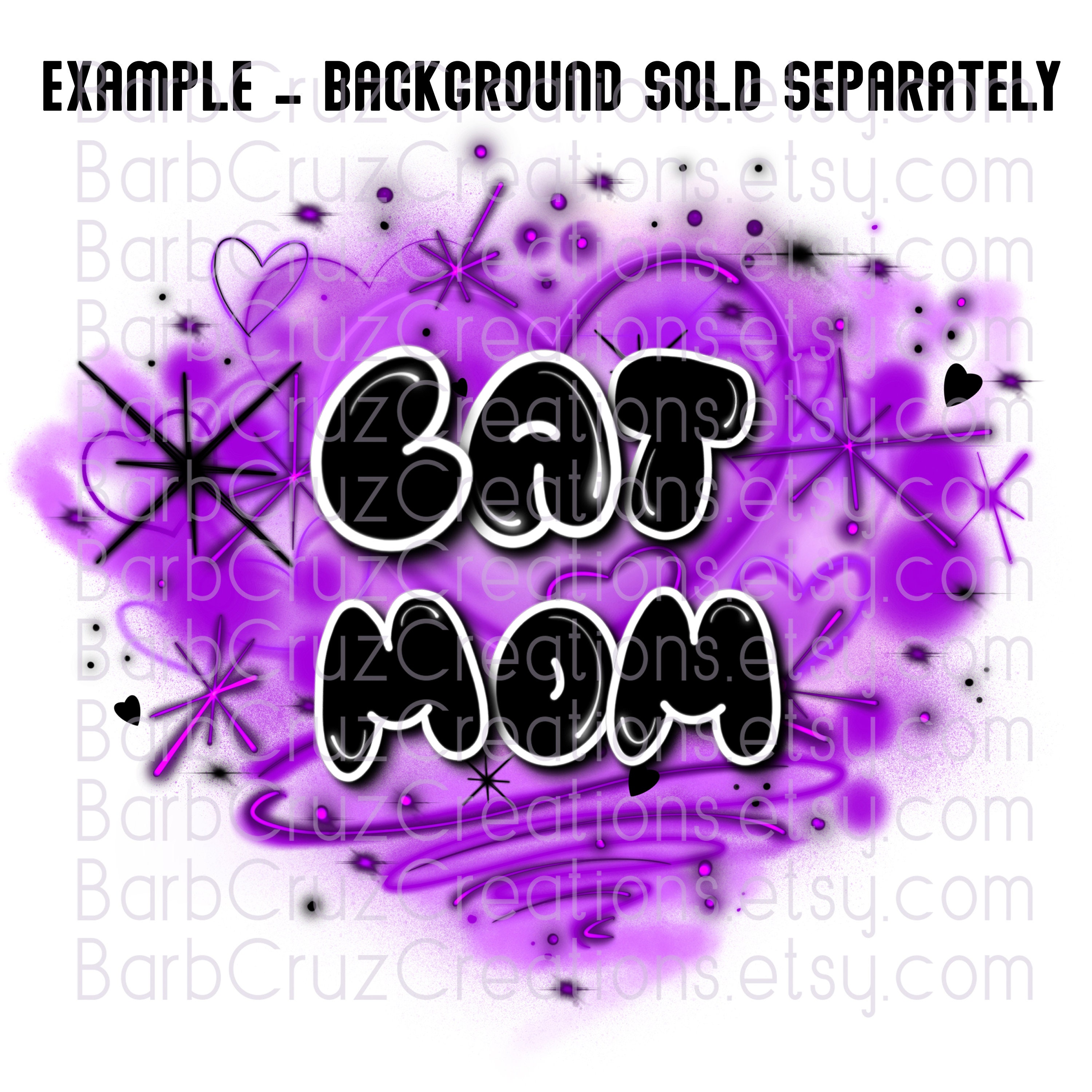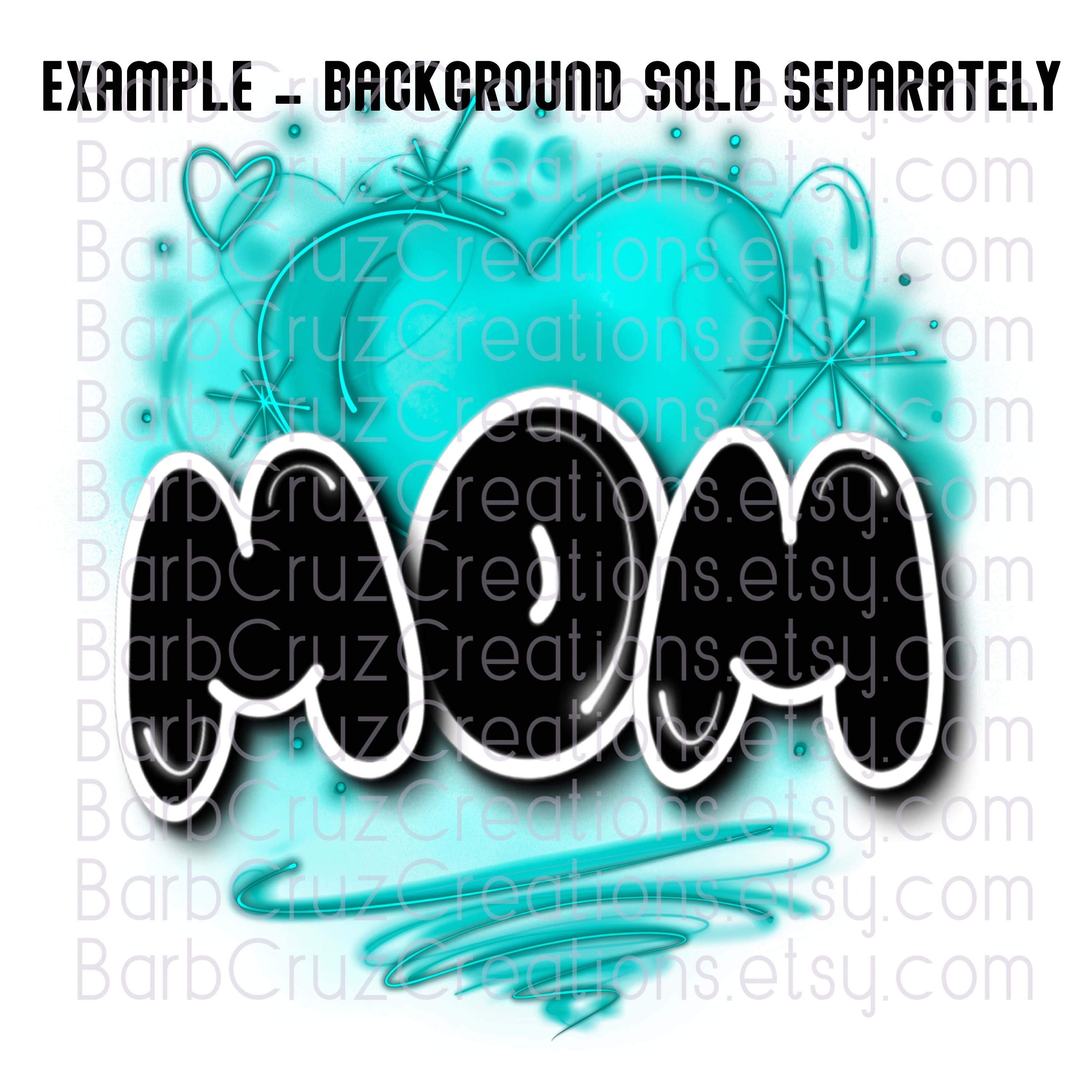
Bubble Font Images, Fat, Graffiti Letters, Airbrush Alphabet, Airbrush, Sublimation, Digital Download, png, bundle, Capital Letters Clip Art
Each letter is a png image, Bundle of Captial Letters, Bubble Fat Font, Shadowing, upper case png airbrush alphabet
Add to a background use for airbrush monogram, a personal message, name, image to make custom
Watercolor & Airbrush Images are transparent in some spots and can be layered to achieve darker or brighter images. Use your copy and paste feature for desired brightness.